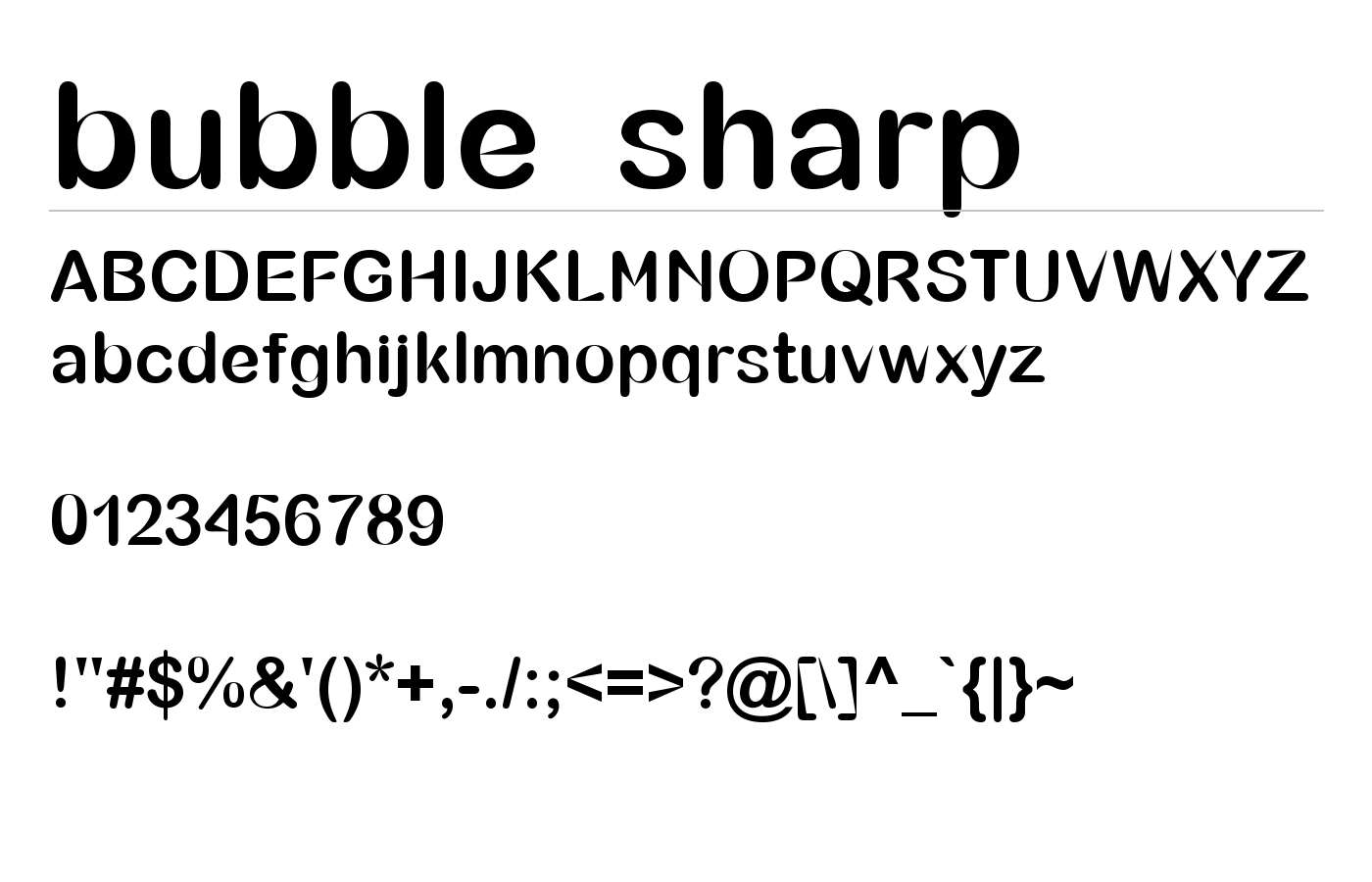
Bubble Sharp is a playful sans-serif font with a unique blend of rounded, bubble-like shapes and sharp, angled terminals, giving it a friendly yet modern character. Its clean, medium-weight strokes and moderate x-height make it versatile for both headlines and display use, while the quirky letterforms add a distinctive, approachable personality. This font works well for branding, packaging, and creative projects that seek a fun but contemporary look.
bubble sharp Font